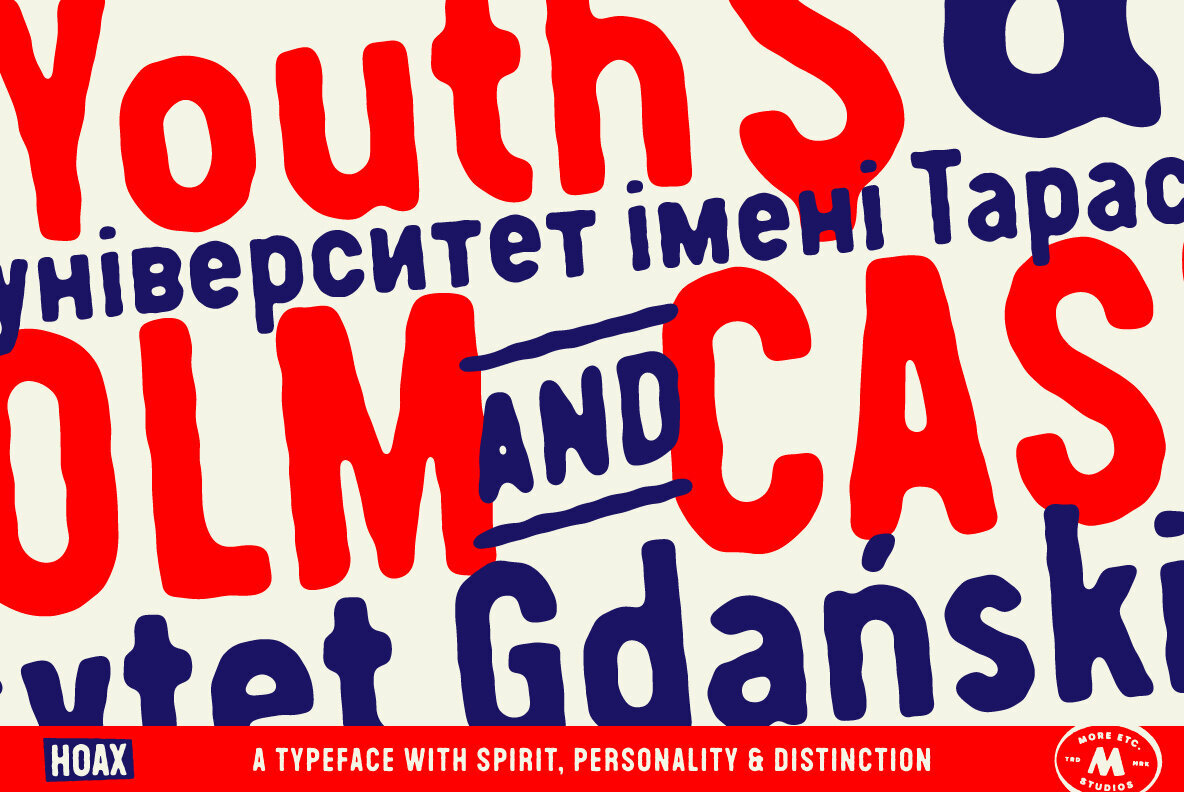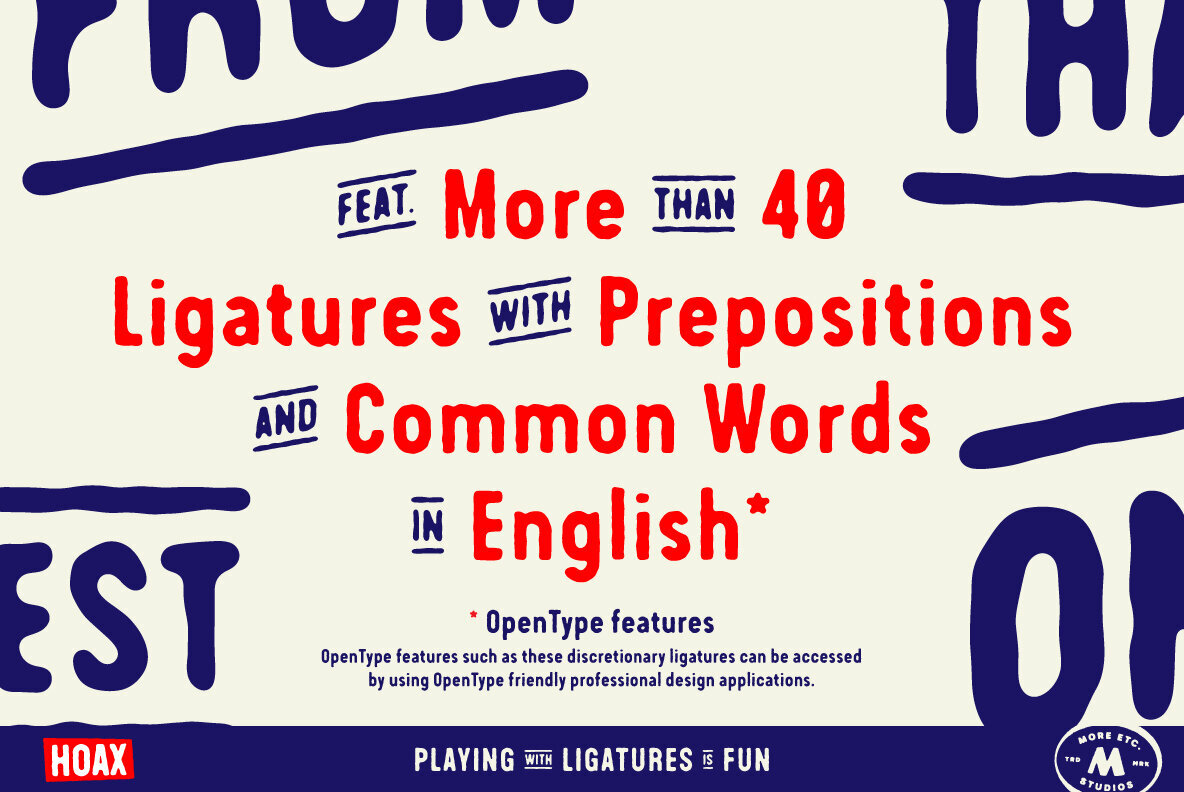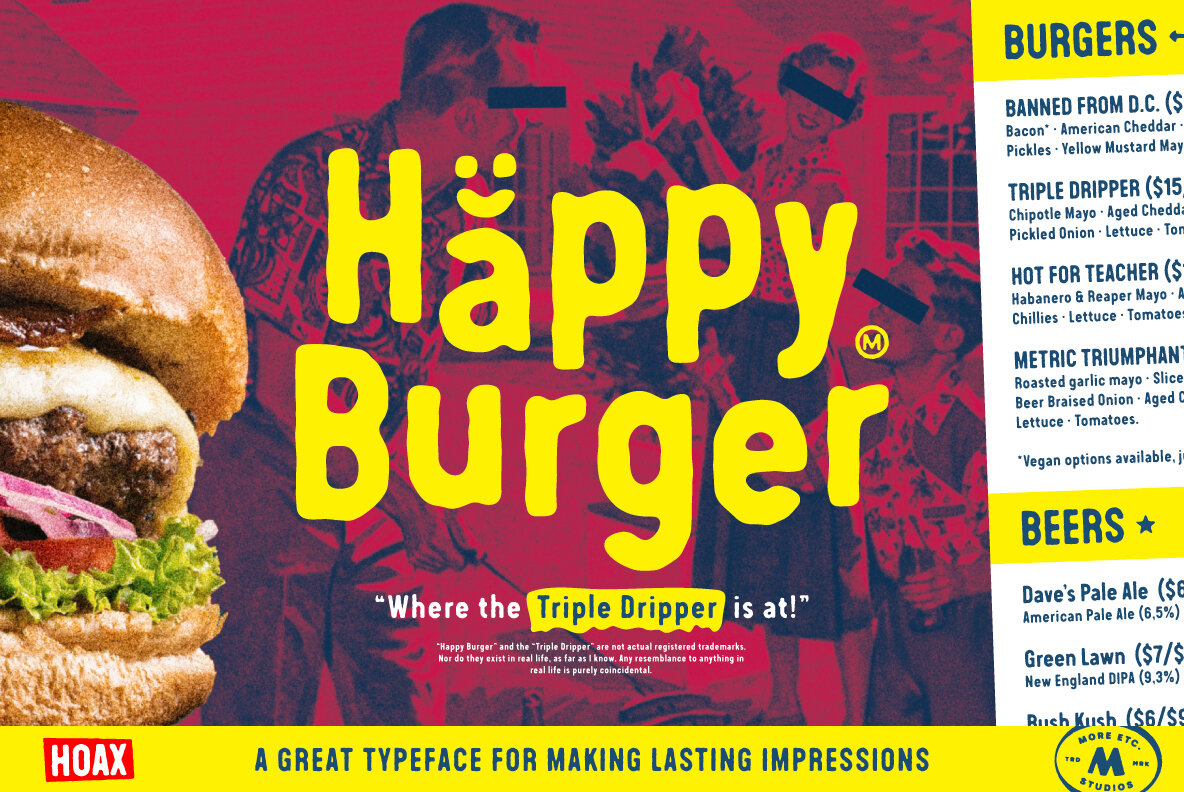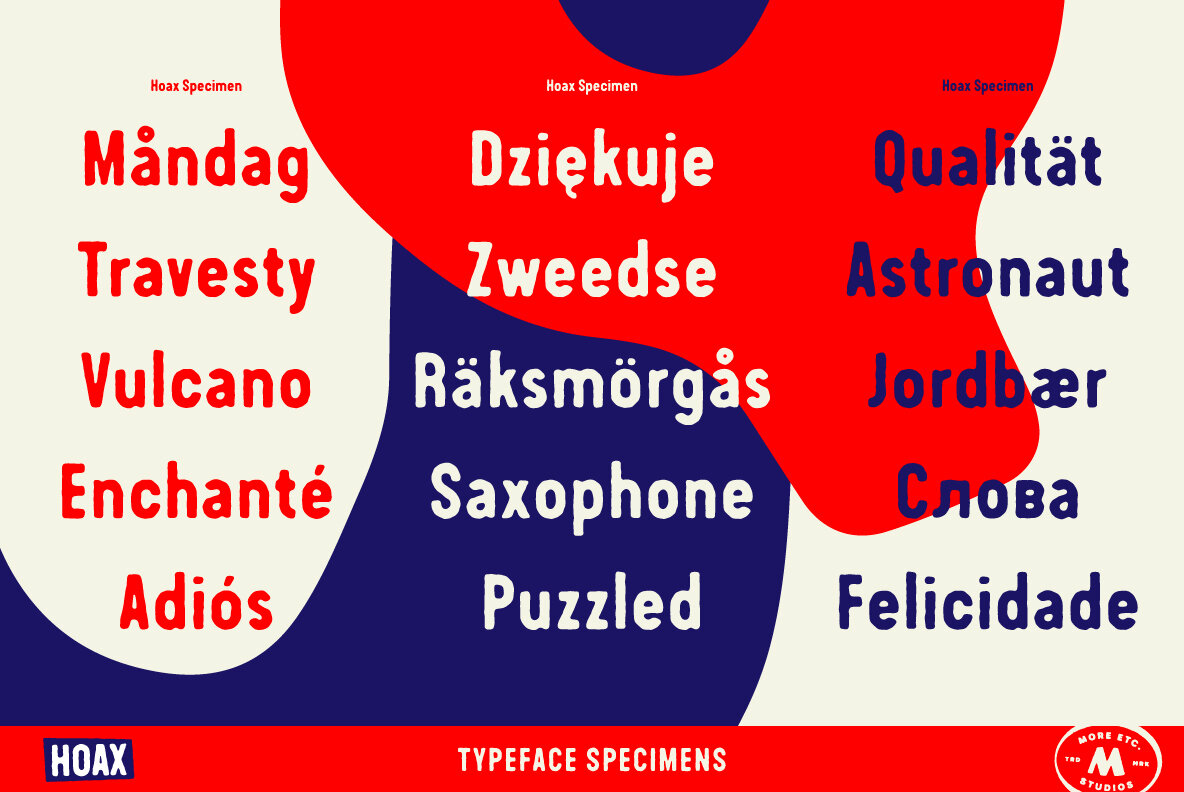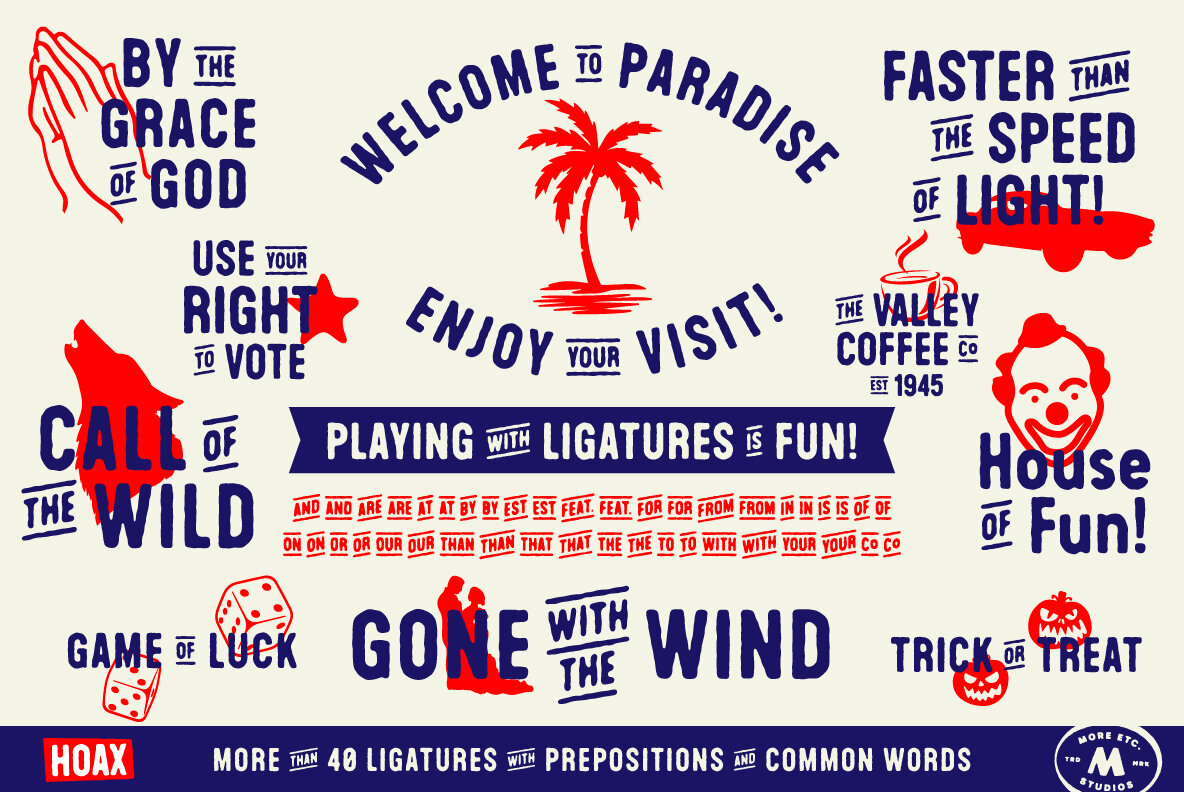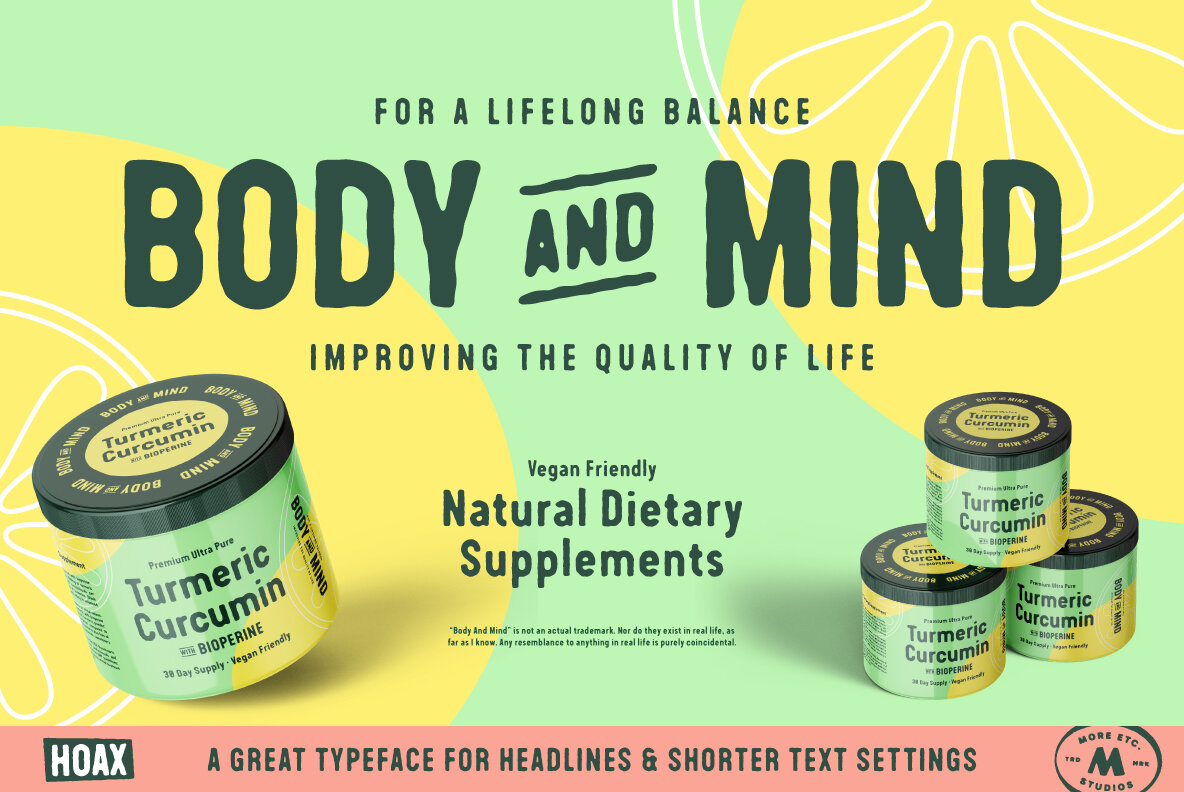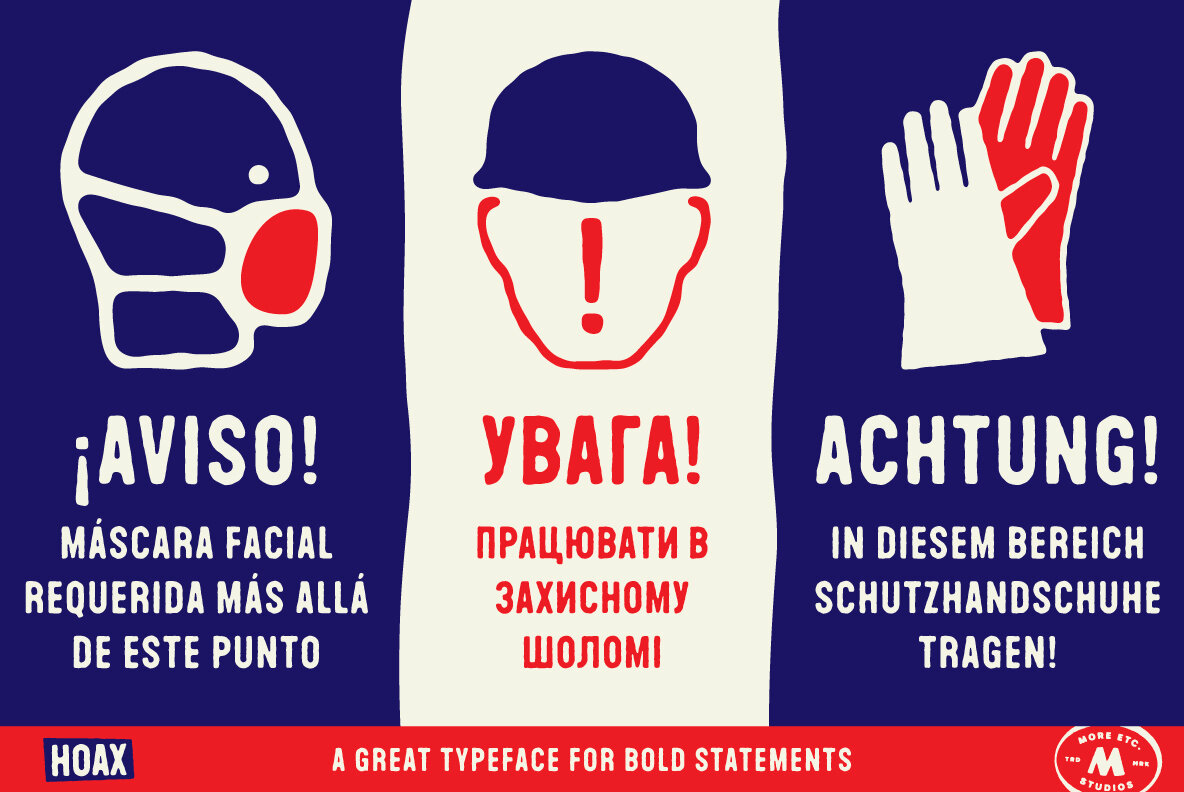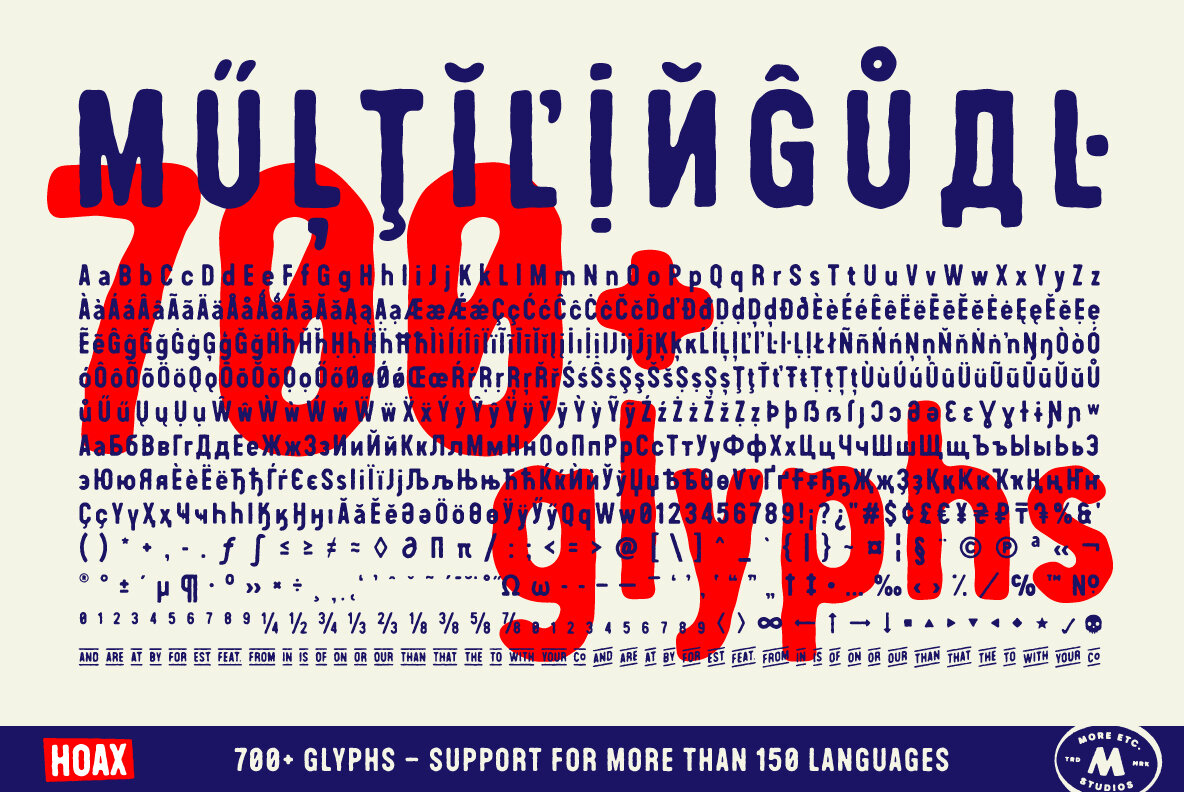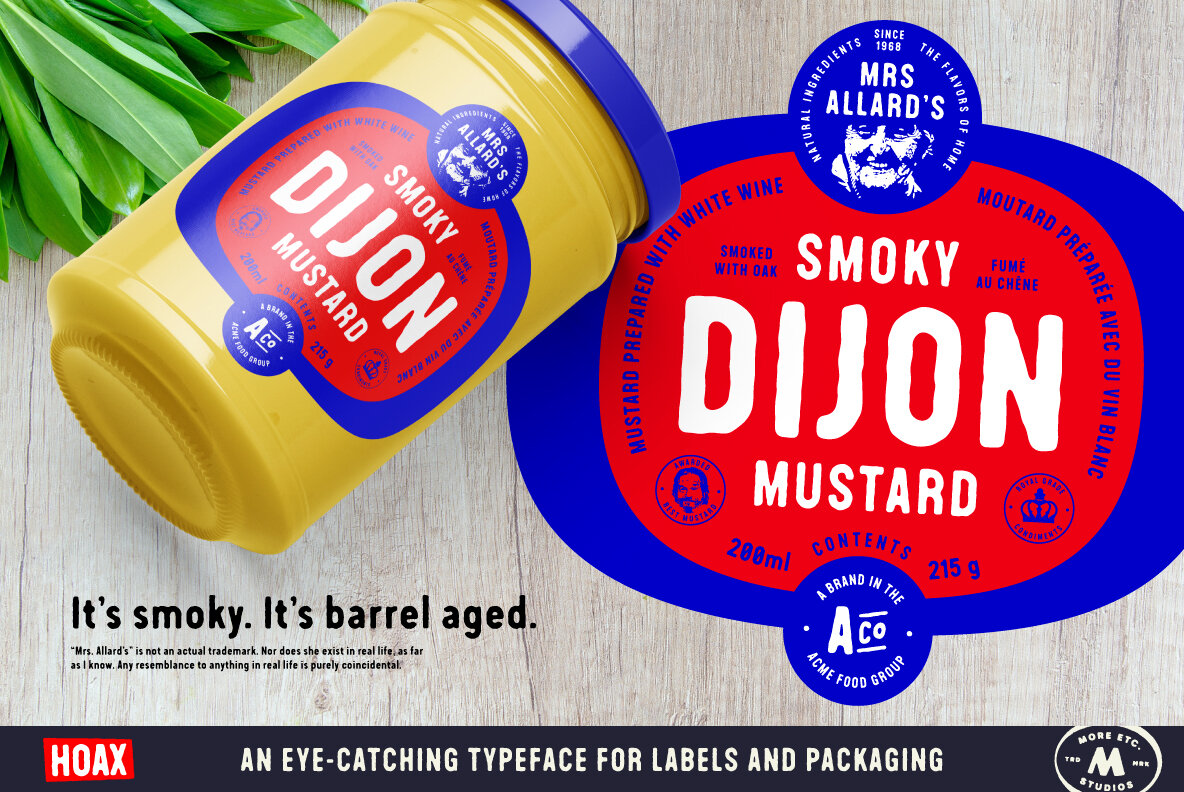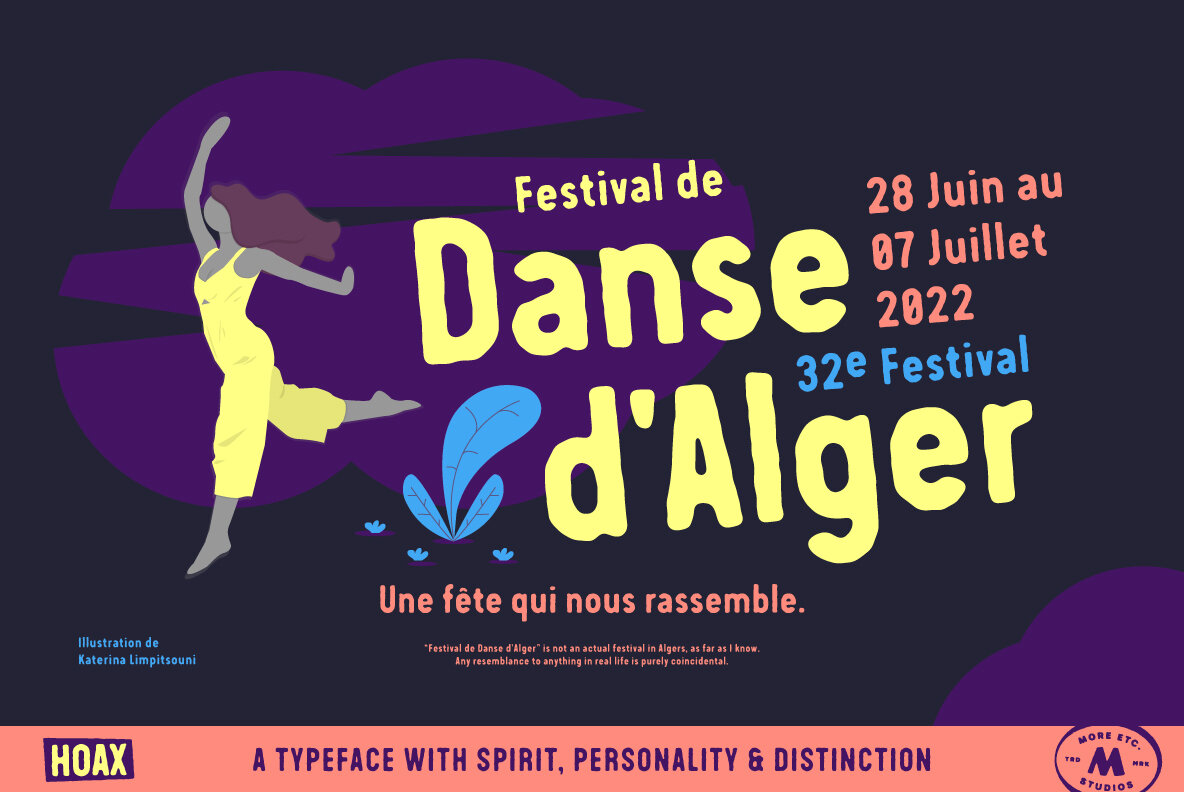
Hoax Font
Hoax Regular
Introducing Hoax – a pre-worn sans serif with spirit, personality and distinction. This bold and semi-condensed sans serif is inspired by old copy machines and vintage prints. It is lively and eye-catching, ideal for where and when you want to make a lasting impression. Hoax is a celebration of character, a tribute to curiosity. Use this typeface and let everyone know that you mean business. OPENTYPE FEATURES: This font includes over 40 discretionary ligatures of prepositions and common words in English. These OpenType features can be accessed using OpenType friendly applications that allow the use of discretionary ligatures and stylistic sets. MULTILINGUAL SUPPORT: With over 700 glyphs, it has support for more than 150 languages, including Cyrillic script. List of discretionary ligatures: AND, ARE, AT, BY, FOR, EST, FEAT., FROM, IN, IS, OF, ON, OR, OUR, THAN, THAT, THE, TO, WITH, YOUR, CO. Each word is available in both upright and slanted versions. How to use: Activate the discretionary ligatures as you normally do in your OpenType friendly application. When activated, the words are in upright versions. To access the slanted versions, activate the first stylistic set (“Slanted Ligatures”).